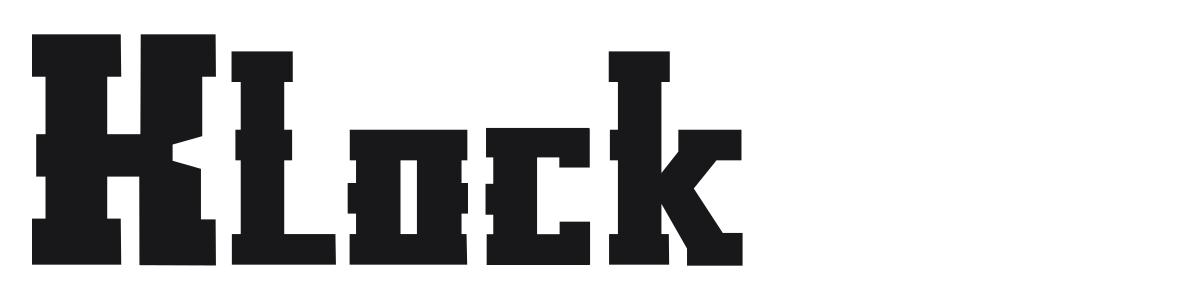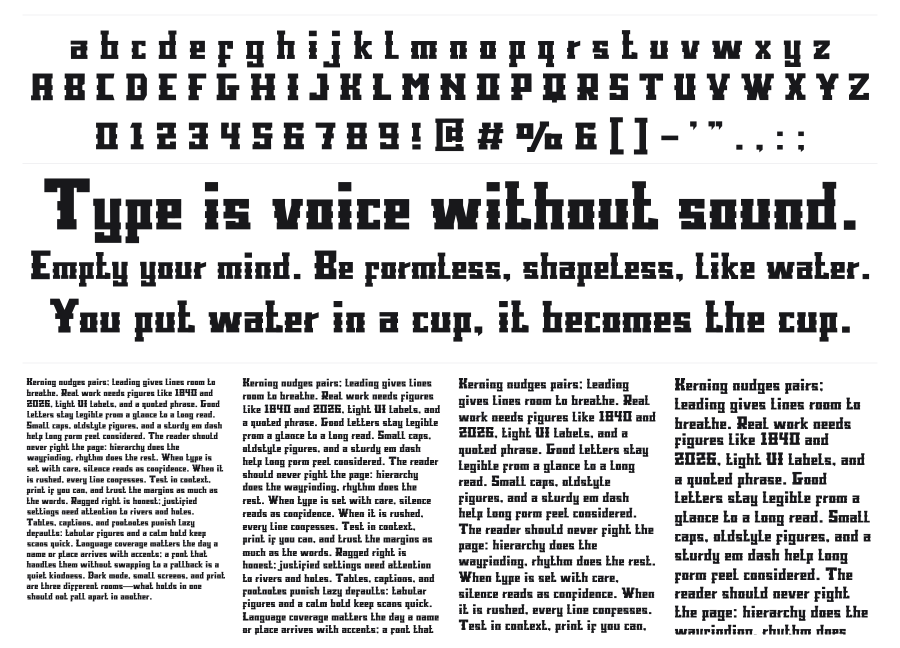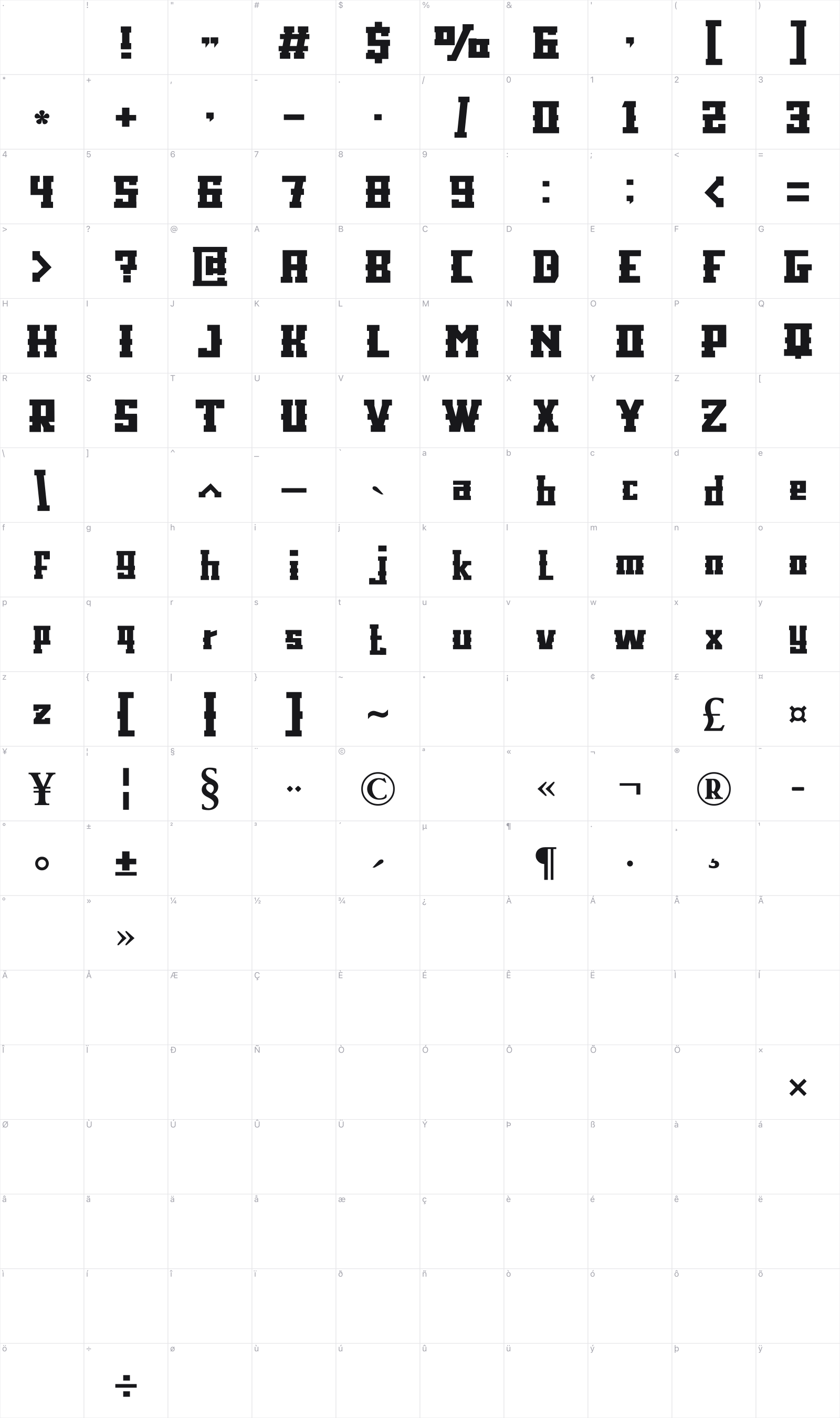
Klock
Klock is a heavy condensed slab-serif built on a modular, pixel-grid logic with bold rectangular notches cut into its stroke junctions. The thick, blocky forms sit somewhere between vintage arcade lettering and an angular blackletter, giving it a distinctly retro-urban edge. It hits hard at display sizes and suits gaming, streetwear, and entertainment branding.